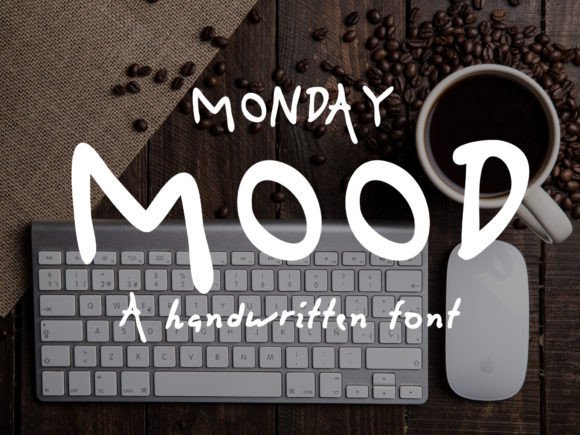
Welcome to the world of Monday Mood Font, where creativity and uniqueness take center stage! This extraordinary script font, brought to life by the talented artnivora.std, is not just a collection of letters; it's an expression of art, a reflection of your individuality. Embrace the whimsical nature of Monday Mood Font and let your imagination run wild.
Step into a world where your designs come alive with a touch of playful elegance. Monday Mood Font's irregular baseline dances across the page, adding a touch of charm and personality to every word. Its whimsical strokes and imperfect curves create a sense of authenticity that will capture the hearts of your audience.
With Monday Mood Font, you'll never settle for ordinary again. It's the perfect choice for adding a touch of uniqueness to your branding, social media posts, invitations, and any creative project that demands attention. Its versatility knows no bounds, making it a must-have for designers, artists, and creative entrepreneurs.
Unleash your inner artist and embark on a creative journey like never before. Monday Mood Font is your gateway to a world of limitless possibilities, where your imagination is the only limit. Experience the joy of creating designs that stand out, captivate, and leave a lasting impression.